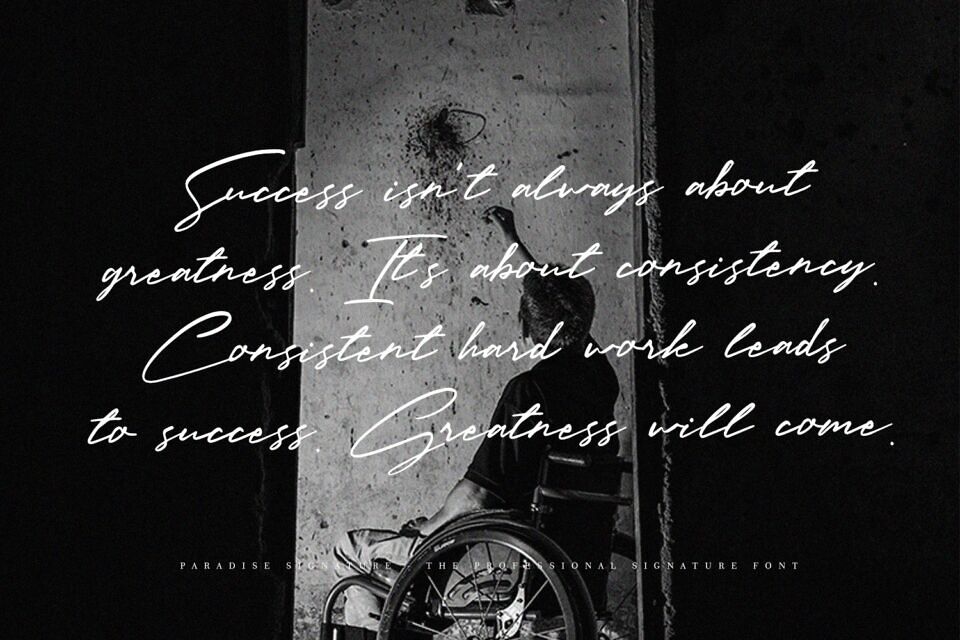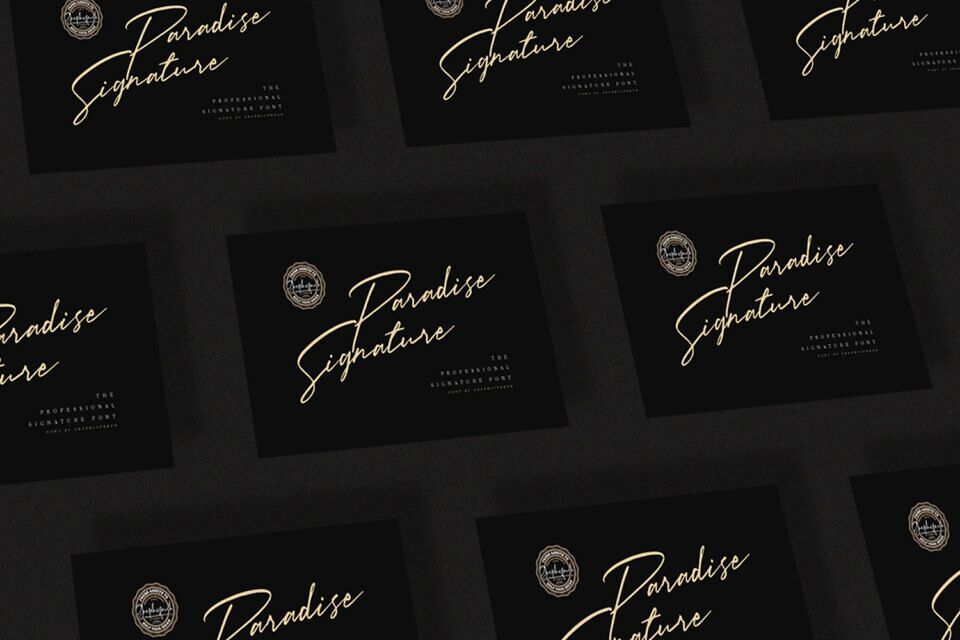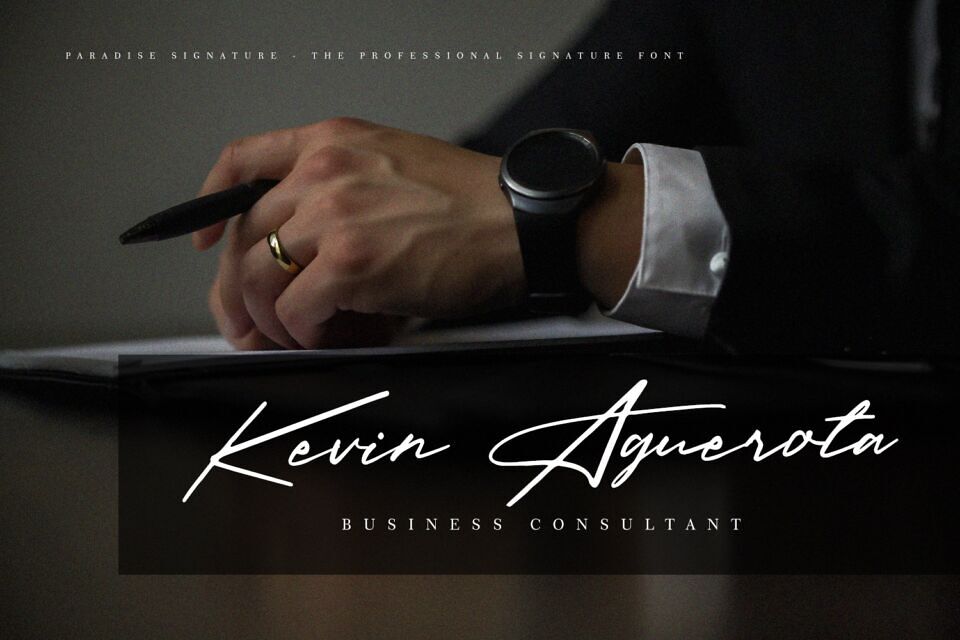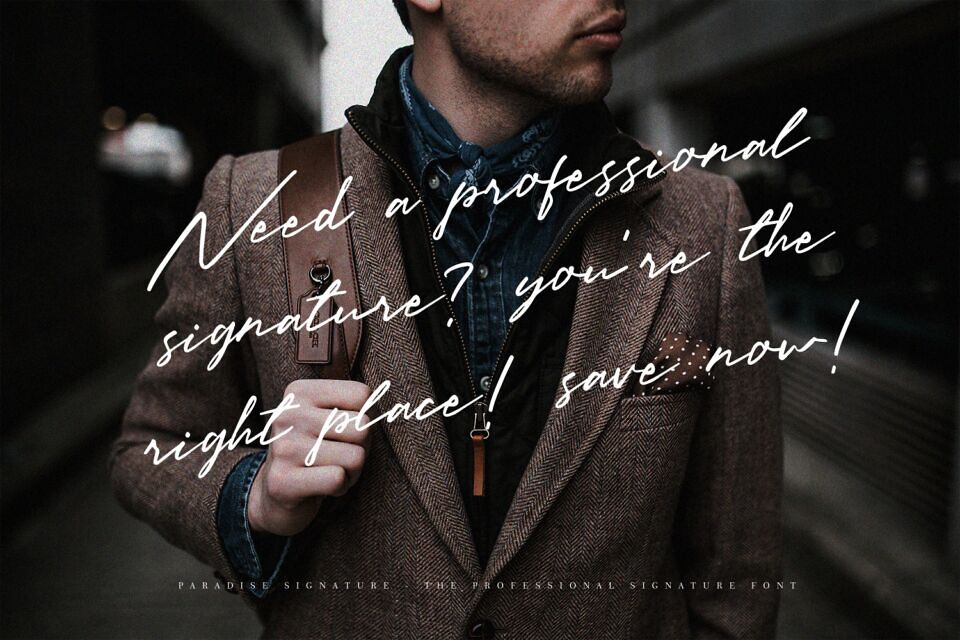
Introducing the Paradise Signature Font by Graphicfresh, a professional signature script with a unique character!
Inspired by countless attempts to craft the perfect signature, this font was born using a custom brush created in Procreate. Its thick, authentic signature style captures the essence of originality, leaving you in awe of its beauty.
Perfect for logos, name cards, magazine layouts, invitations, headers, or large-scale artwork, this font adds a personal, elegant touch to any project. With its distinctive flair, Paradise Signature Font is a must-have for creators seeking to elevate their designs. Congratulations on adding this stunning font to your collection!